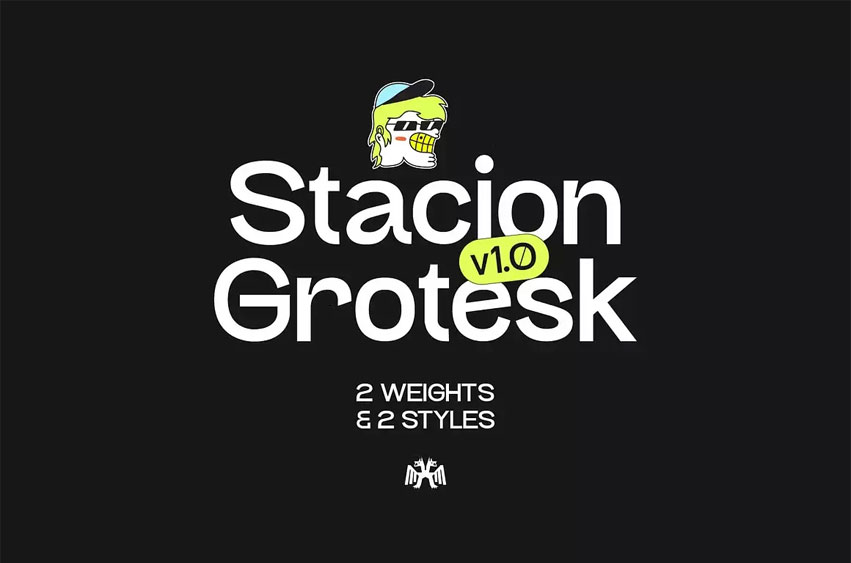
Stacion Grotesk Font
Stacion Grotesk Font is the latest funky type cooked up in the oven. It has a fun character, playful glyphs, and some unique details.
Inspired by Brutalist Bus Stations in the Yugoslavian Era, this type can be called weird. Weird is always interesting. Available in Light, Regular, and italics.
Stacion Grotesk, developed with a diversity of tasks in mind, will be an asset in branding, advertising, typography of text, and web design. It provides a clean, simple, and modestly personalized look that supports straightforward and clear communication of information. It also caters to a more humanist touch through its gentle look and feel in your texts.
Stacion Grotesk provides plenty of alternative weights and font styles so you can adapt to needs specific to your project. Whether you are into bold or refined fonts, Stacion Grotesk offers you the beauty and poise you want for a headline font to attract and a body text font for clarity and readability.
The union of the classic and the innovative – the Stacion Grotesk Font is the best bid for designers who simultaneously demand function and form in their typography. Immerse yourself in the neat lines of Grotesk Stacion, and be ready to lift your projects to unexpectedly finished shapes of exclusivity and distinctive manner.